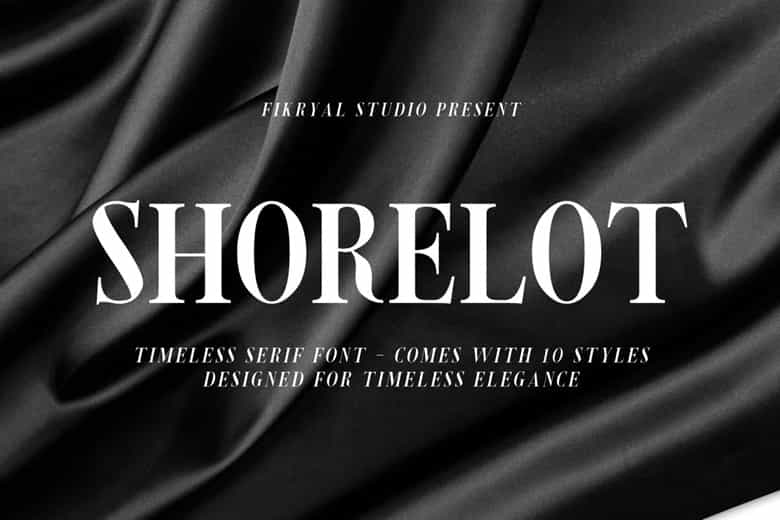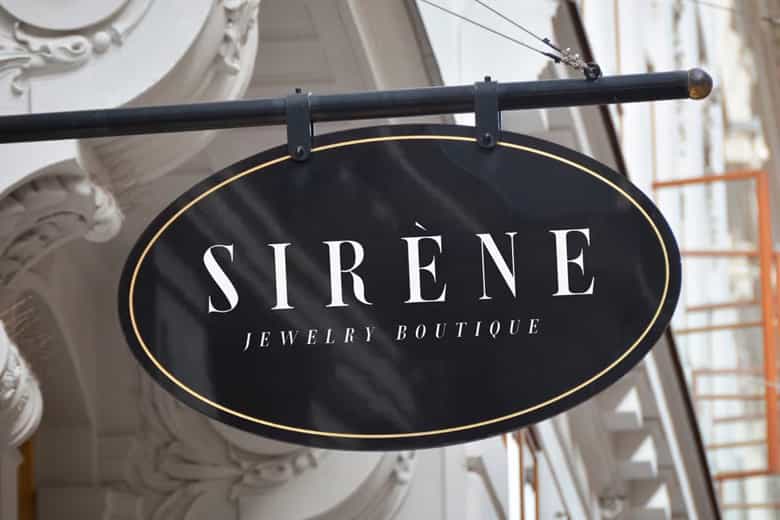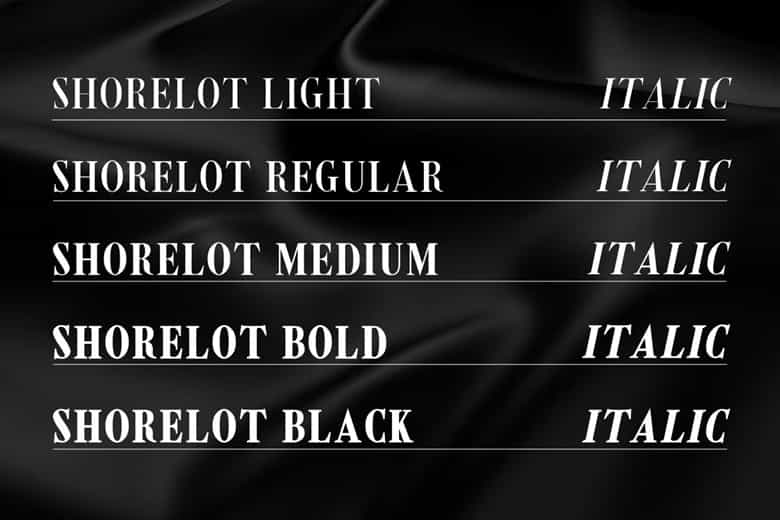
Shorelot is a modern, and refined serif font intended for use in display sizes. Designed with a capital letter style, Shorelot is a classic yet versatile typeface that will help any designer take their work to the next level.